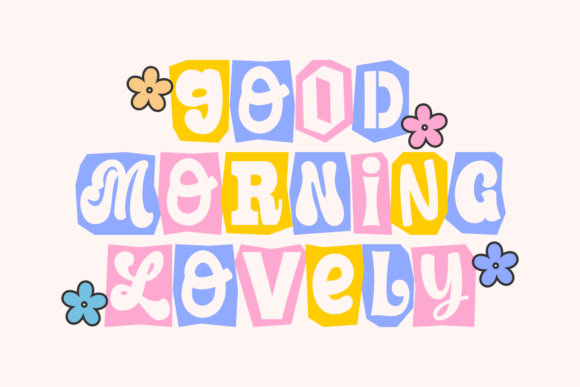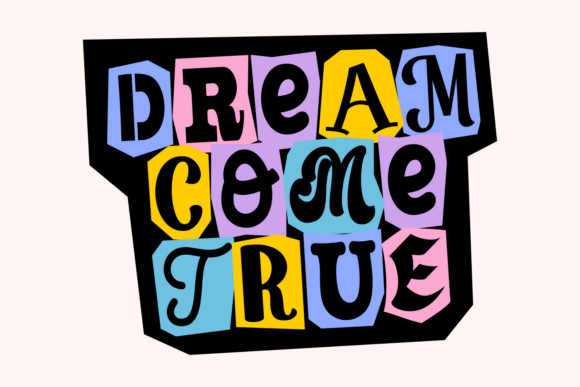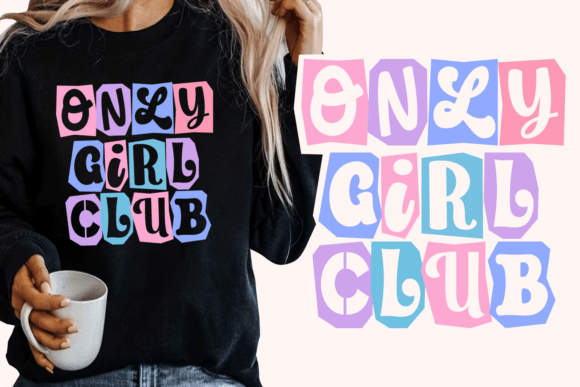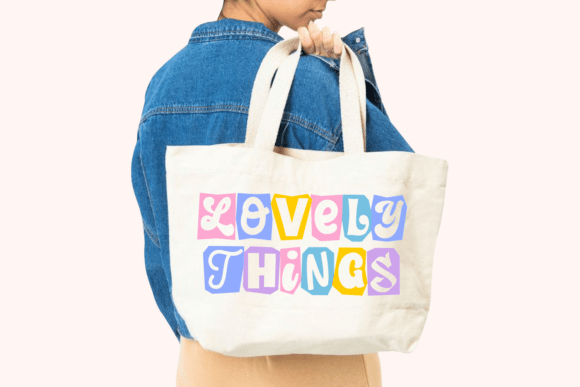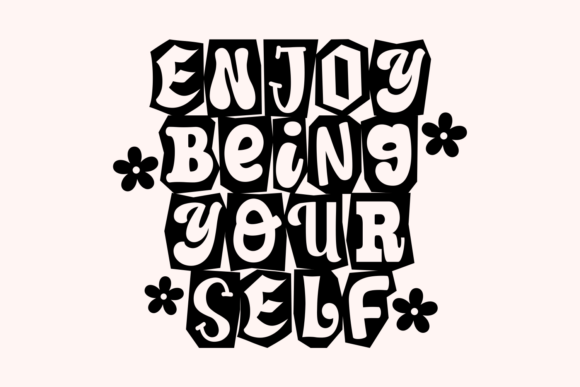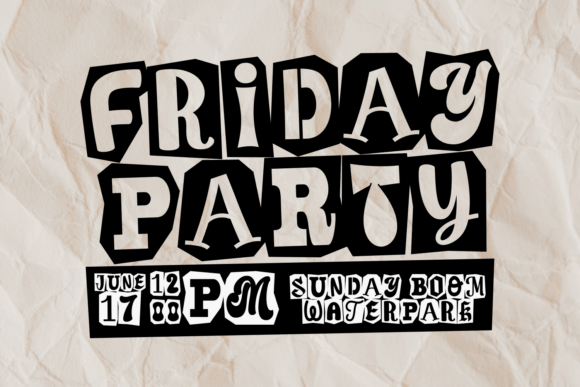
Introduction to Ransom Alphabet Font Font
Fonts play a crucial role in design, and the Ransom Alphabet Font font is a typeface that brings both character and versatility to any project. Whether you’re working on a branding project, a website, or a print design, the Ransom Alphabet Font font offers a unique style that can elevate your work.
Step into a vintage era with Ransom Alphabet; a unique display font that encapsulates the nostalgic, retro charm of ransom-style newspaper clippings.
This darling of a typeface, with its cute and distinctive style, will elevate your projects, lending an old-school appeal thatβs hard to resist Benefitting from influences soaked in historical newspaper design, and paying homage to ransom notes, Ransom Alphabet does more than just impress.
Key Features of Ransom Alphabet Font Font
Why Choose Ransom Alphabet Font Font?
The Ransom Alphabet Font font is more than just a typeface β it’s a design tool that helps you communicate your message with style and clarity. Its unique character set and versatile design make it suitable for a wide range of applications, from elegant invitations to bold headlines.
With its carefully crafted letterforms and balanced proportions, the Ransom Alphabet Font font ensures readability and visual appeal across all mediums.
What makes Ransom Alphabet Font font special?
The Ransom Alphabet Font font stands out with its unique design, exceptional readability, and versatility across various design applications.